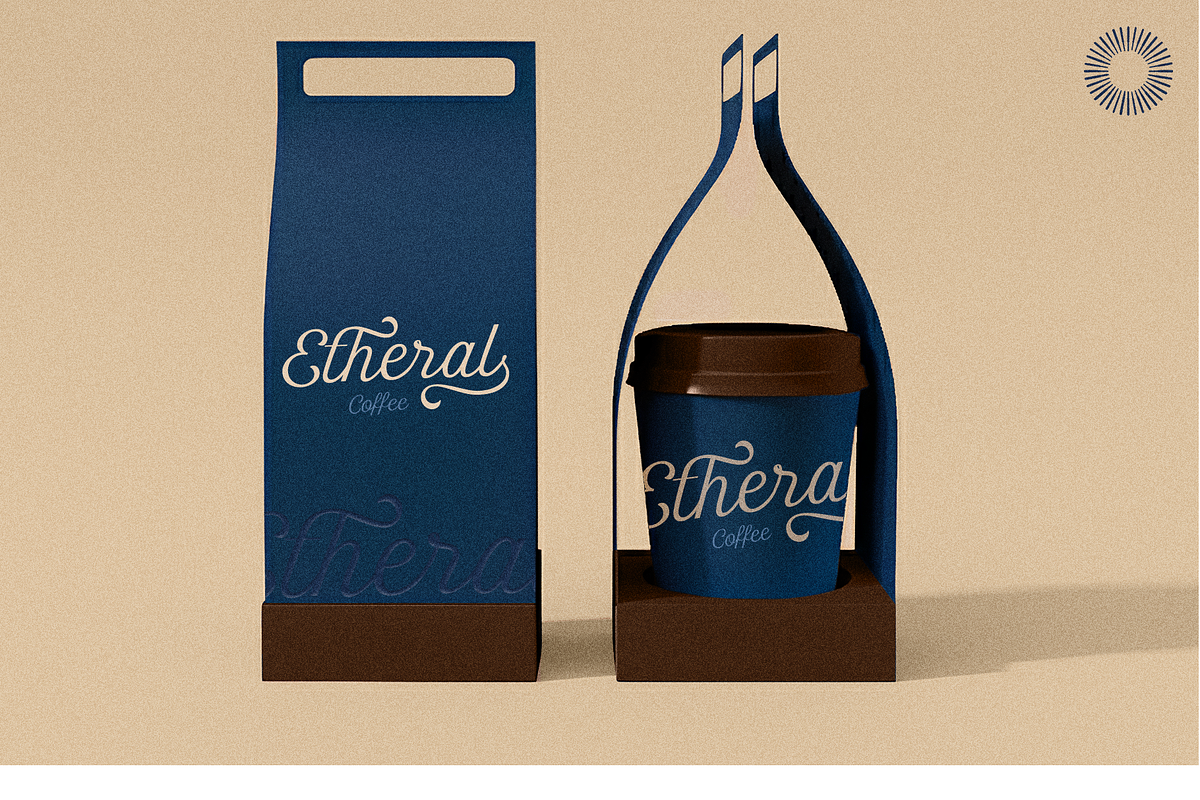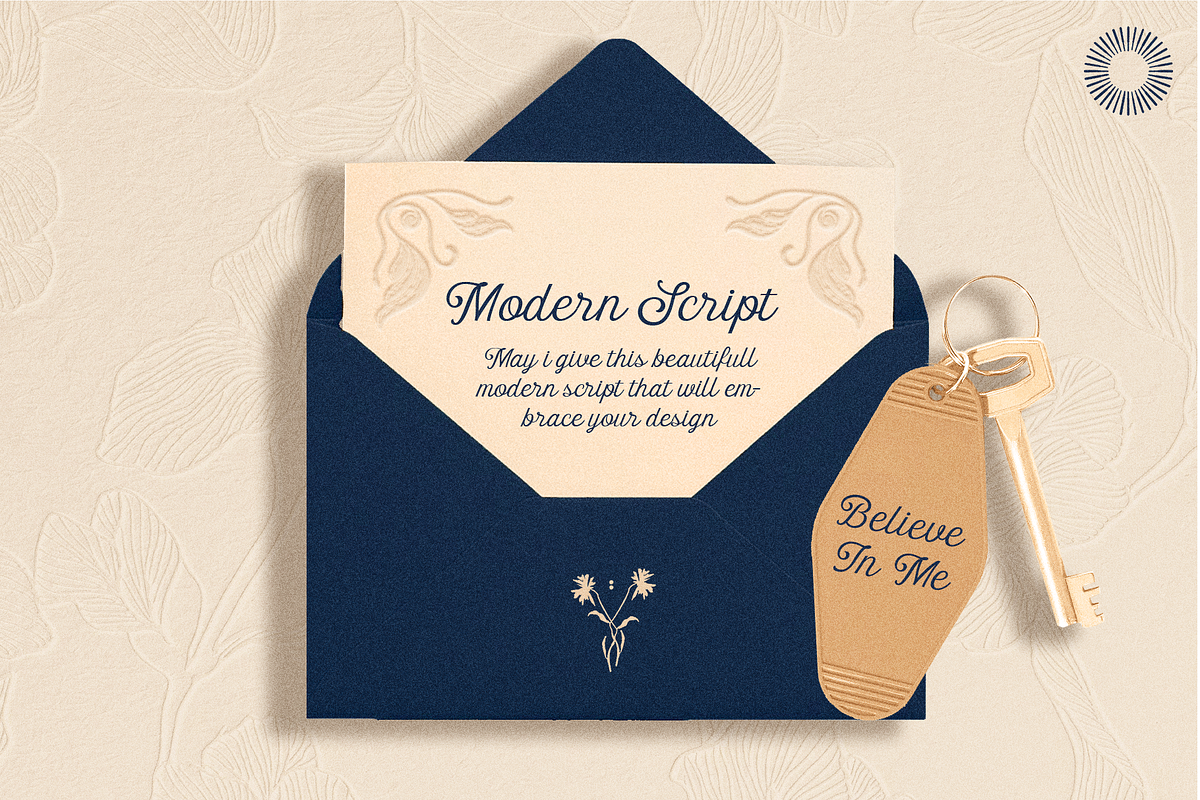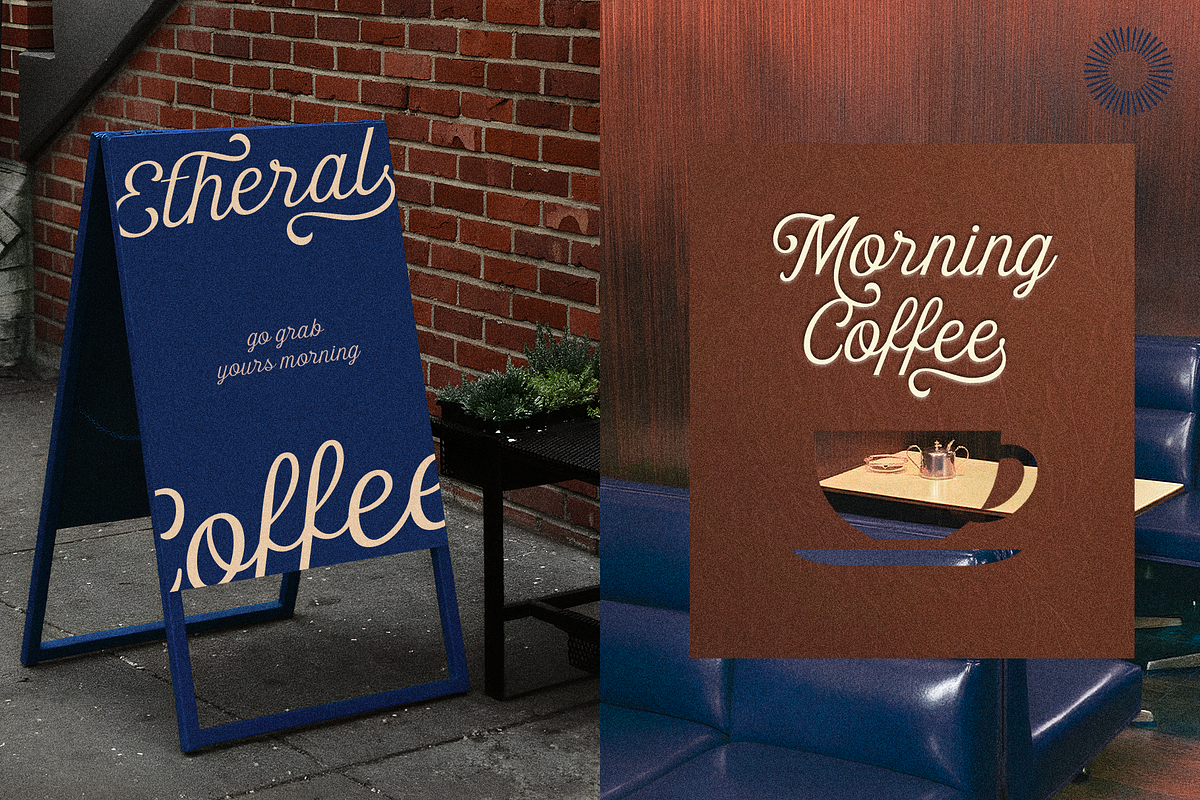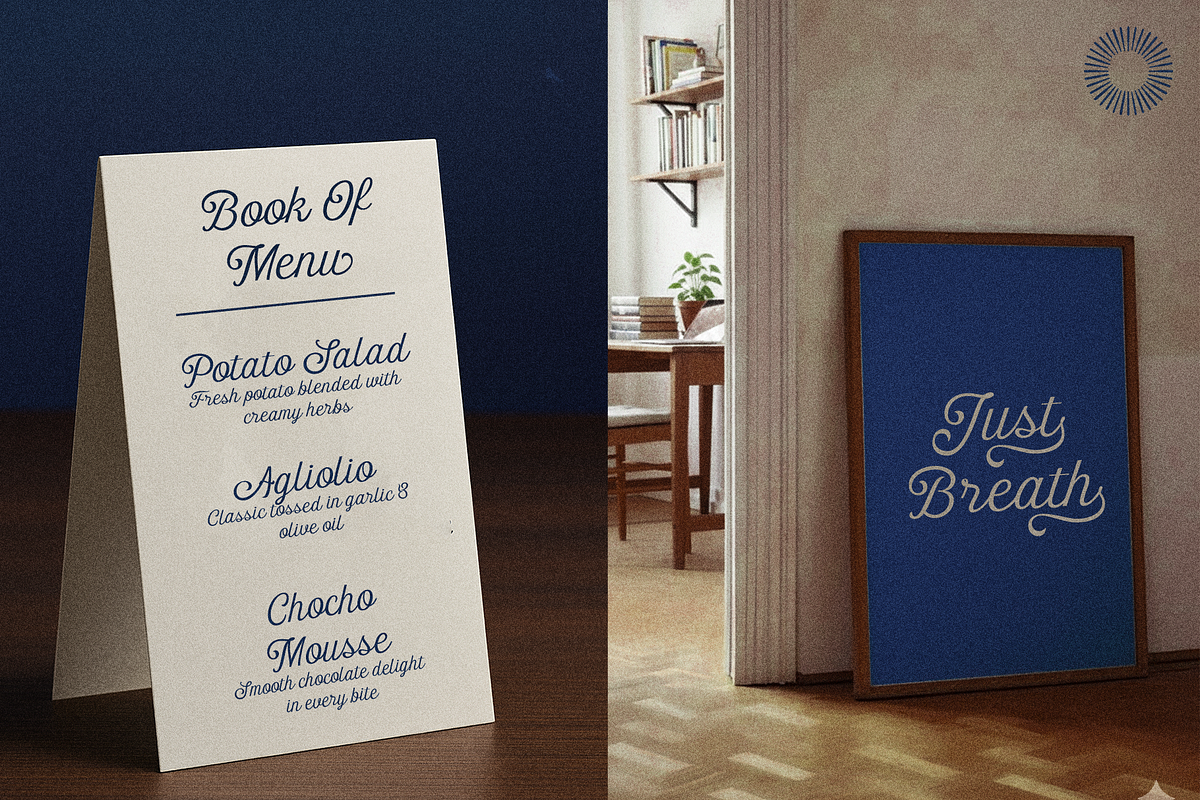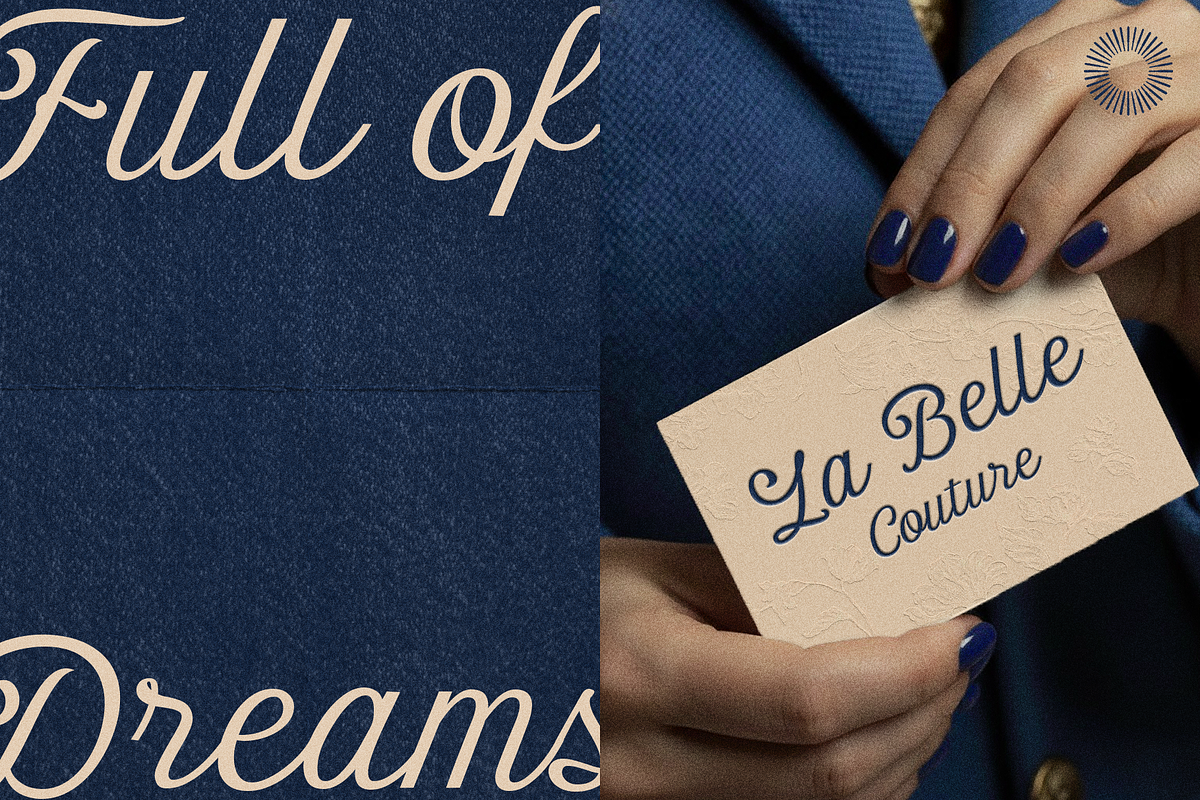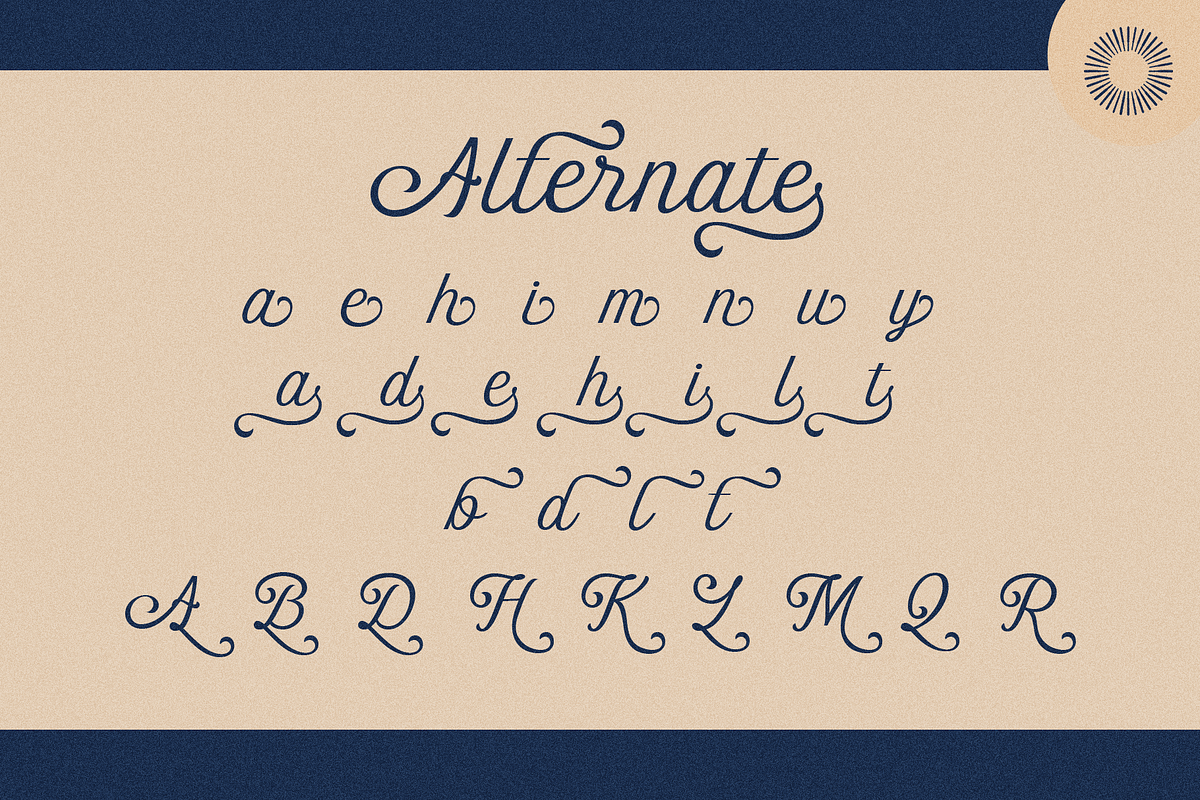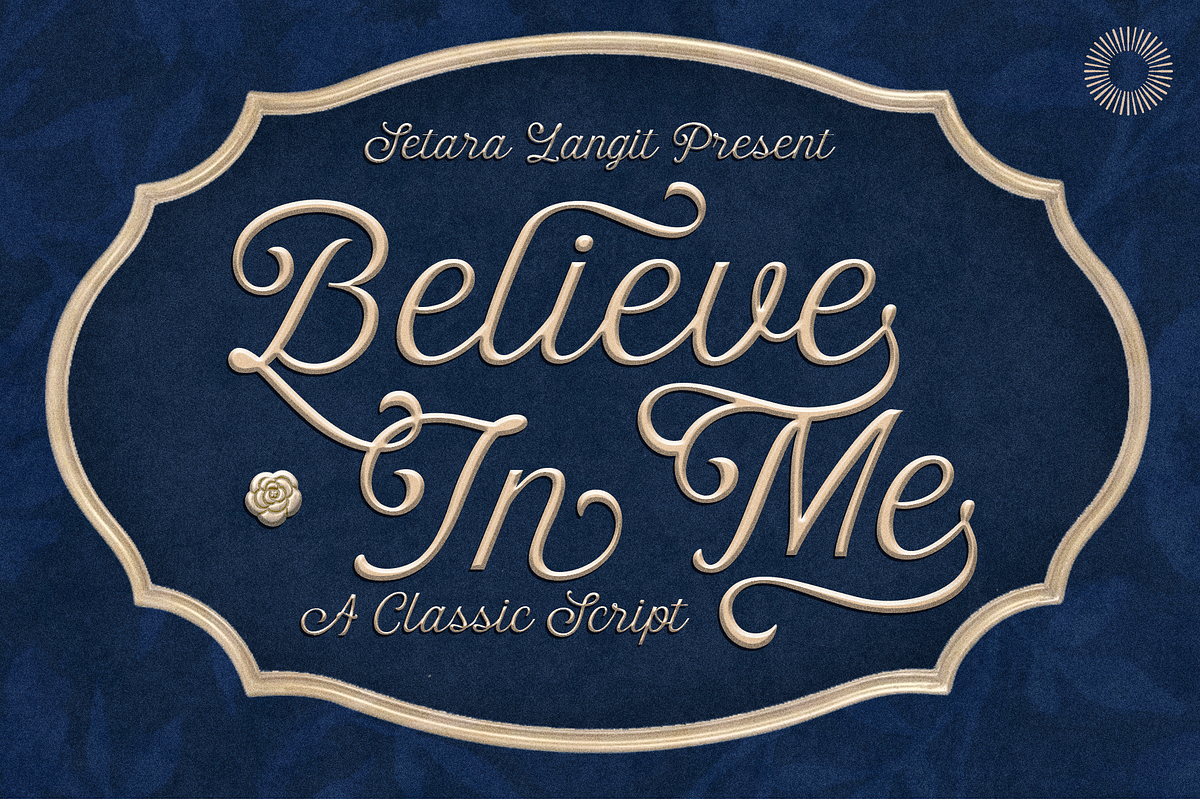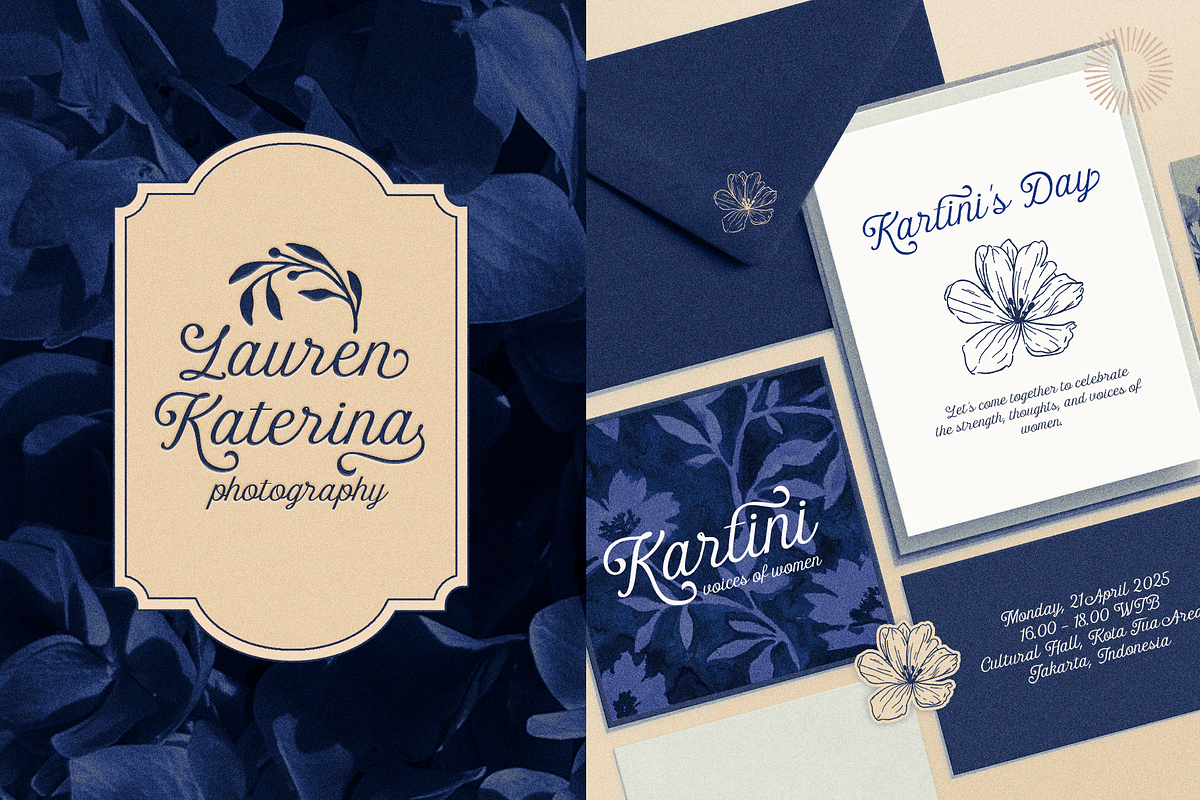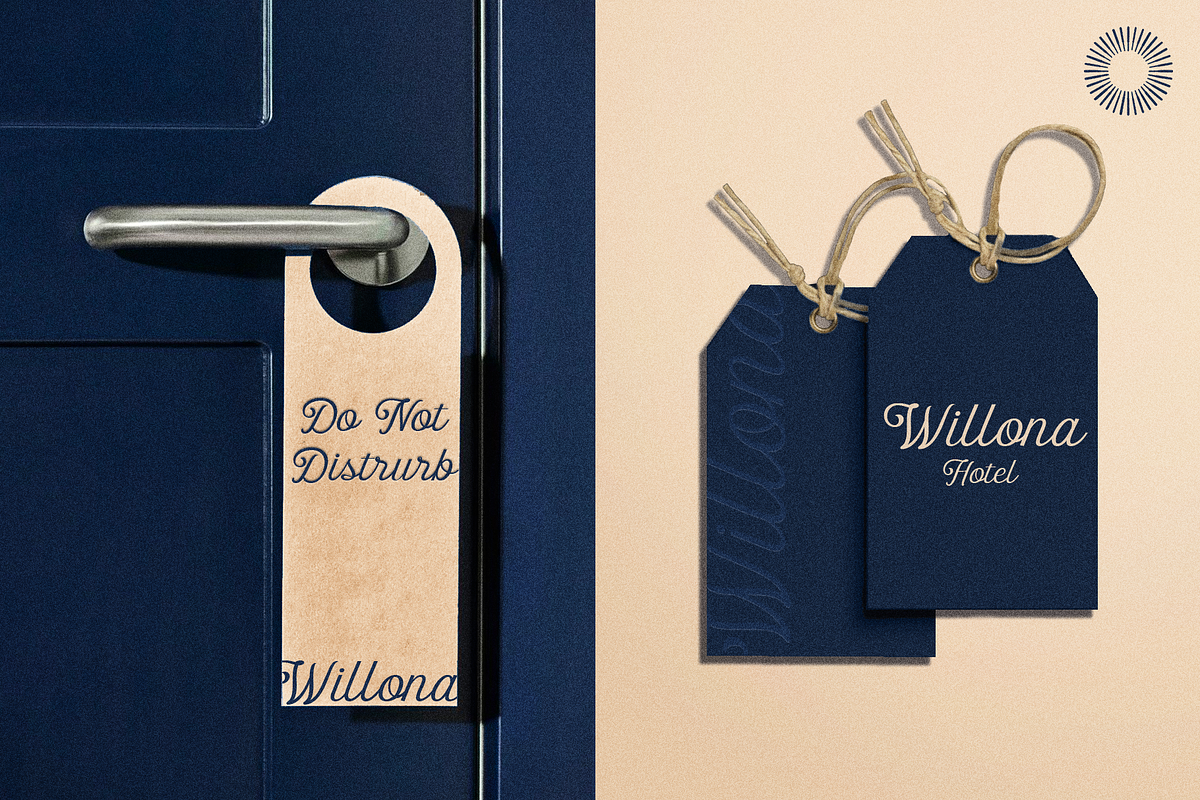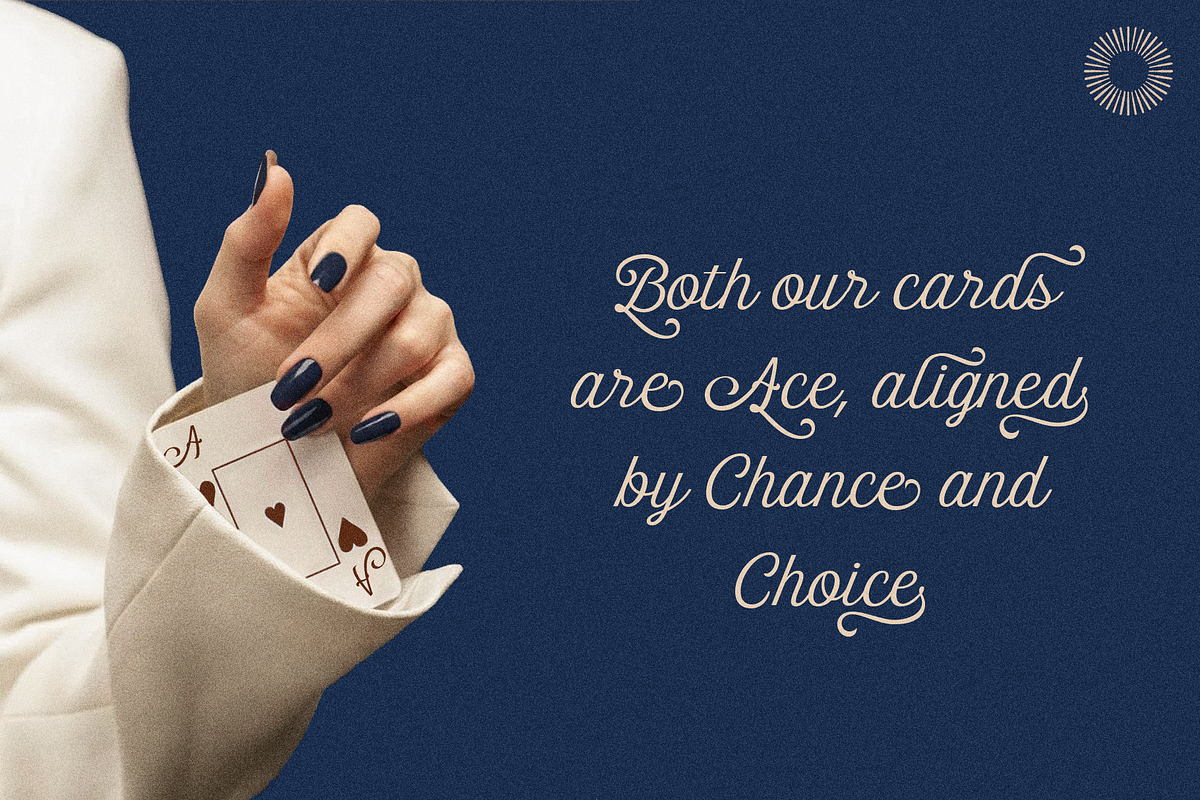
Believe in Me - Script
Believe In Me is a classic script font designed to express elegance without losing clarity. Built with flowing strokes and graceful swashes, this typeface balances decorative beauty and legibility, something many script fonts struggle to achieve. The letterforms are inspired by traditional calligraphy, but refined for modern digital use. Each curve is intentional: the swashes are expressive yet controlled, making them suitable for headlines and logos without overwhelming the composition. This makes Believe In Me versatile, not only for romantic or vintage aesthetics, but also for premium branding that needs warmth and confidence. Unlike overly thin or highly ornamental scripts that fail at small sizes, Believe In Me maintains readable stroke contrast, which helps it perform well across print and digital media. The natural rhythm between characters allows words to flow smoothly, especially in short phrases and titles.
This font works best for:
- Branding & logo design
- Wedding invitations & stationery
- Editorial headers
- Packaging & product labels
- Social media graphics and quotes
If you’re looking for a script font that feels classic, sincere, and polished—without looking stiff or overly dramatic—Believe In Me is designed to support that tone.
- Script font with elegant swashes
- Numerals & punctuation
- Easy-to-use, clean spacing